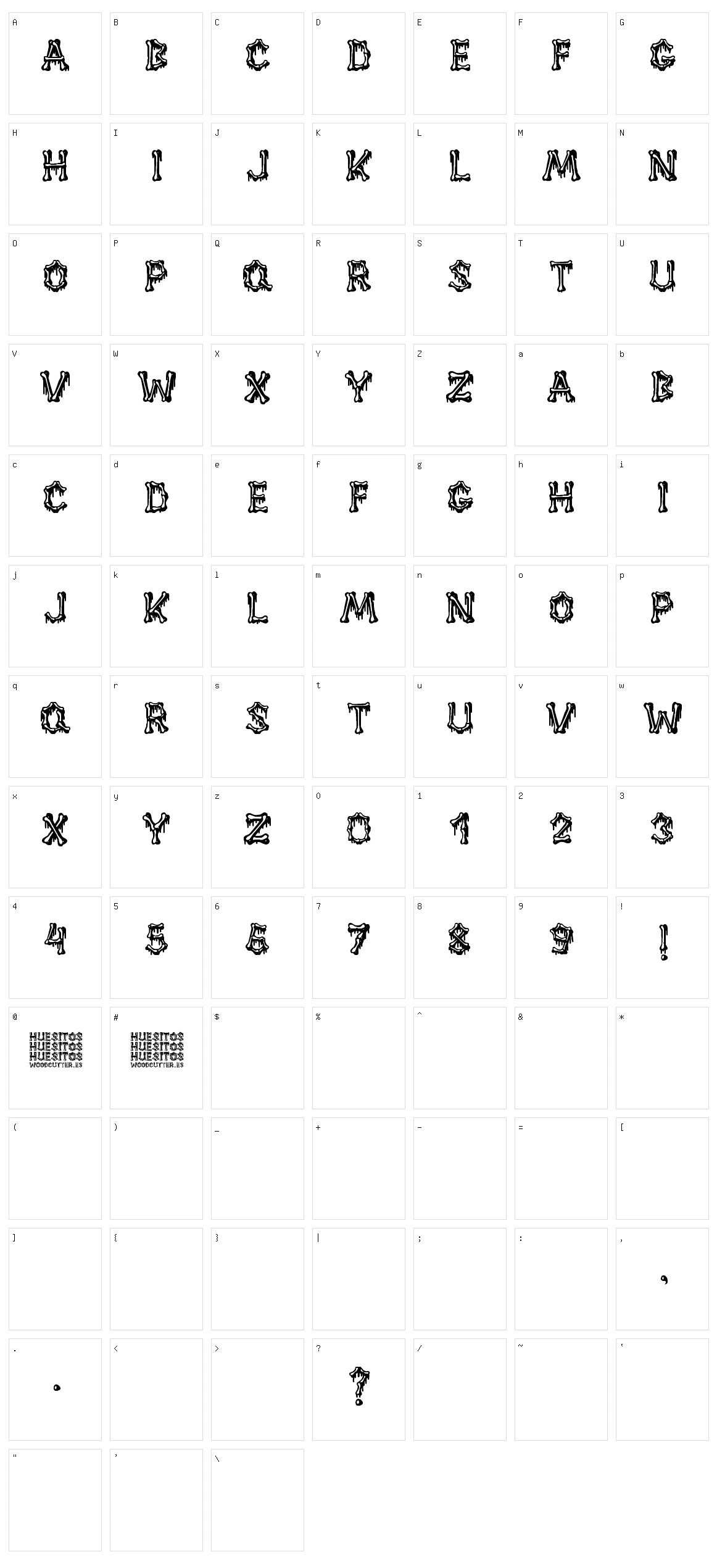
The free font Huesitos is carefully designed by Woodcutter, showcasing a thoughtful balance of creativity and usability and falls under the Horror font style. When you download the ZIP file, it contains only 54.48 KB of font files, making it lightweight and quick to download. Please review the license details below to understand permitted usage and distribution rights. If license information is not available, we recommend using this font for personal projects only or contacting the author directly for commercial usage permissions.